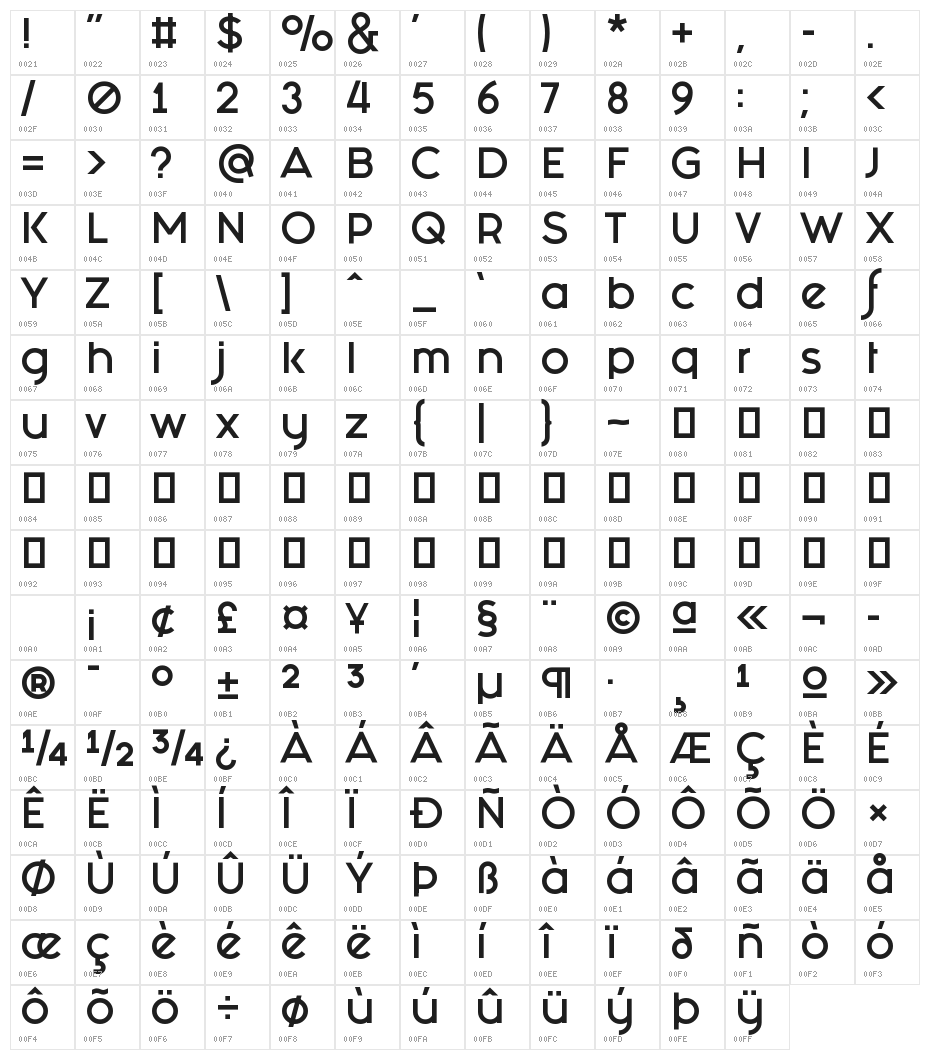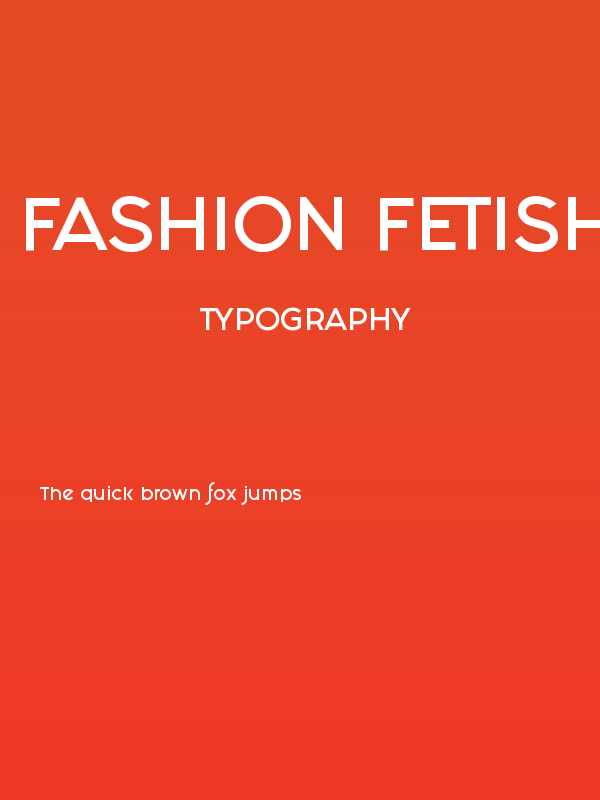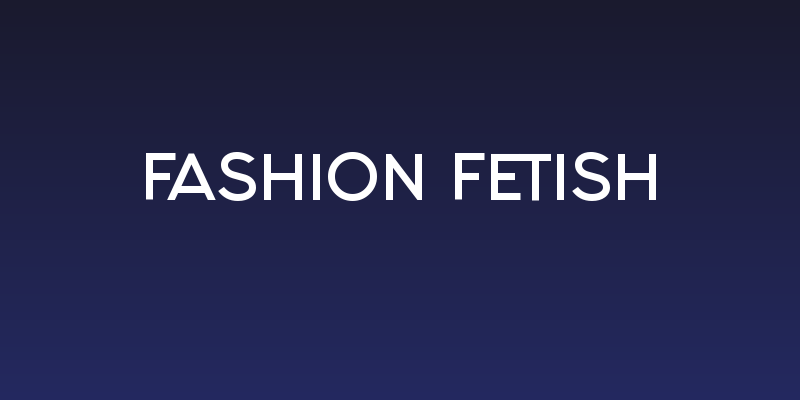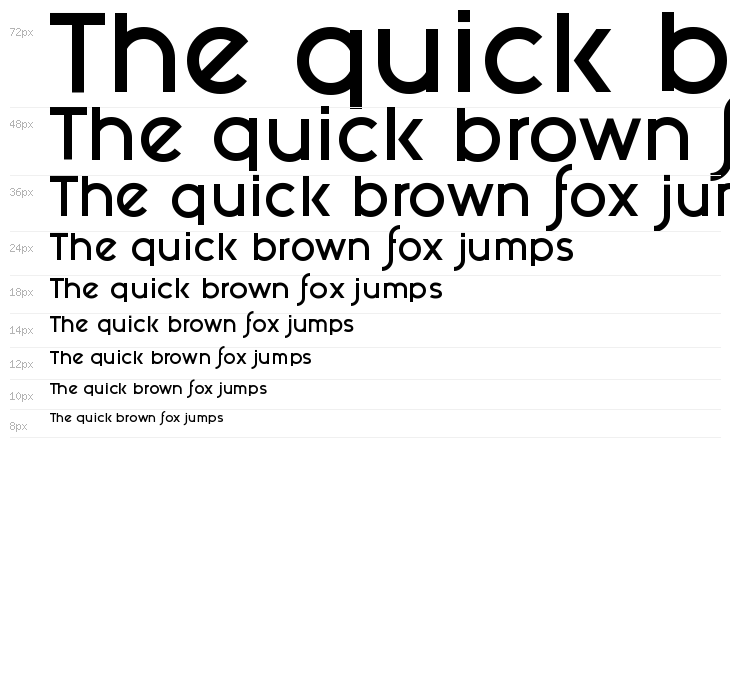
Fashion Fetish Font
Fashion Fetish Description
This font is a modern sans-serif typeface characterized by its clean and geometric design. The letters are uniform in width, providing a balanced and harmonious appearance. The uppercase letters are bold and assertive, while the lowercase letters maintain a consistent style with slightly rounded edges, adding a touch of softness. The numerals are clear and legible, making them suitable for various applications. Special characters are well-integrated, maintaining the overall aesthetic of the font. The design is versatile, making it suitable for both digital and print media.